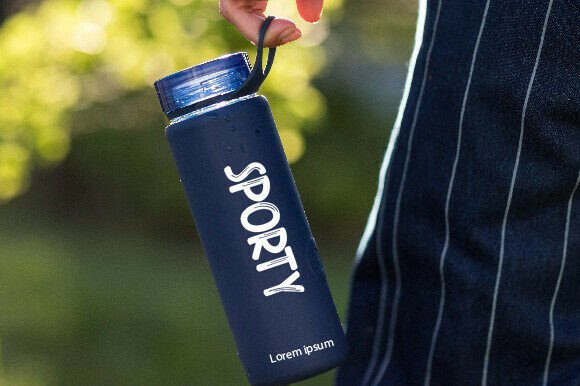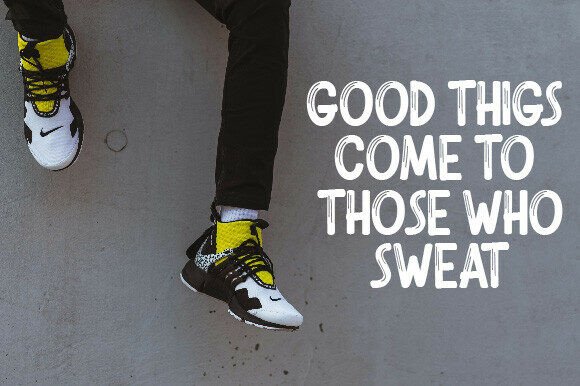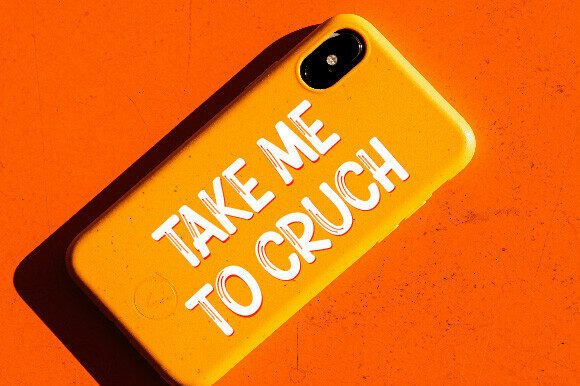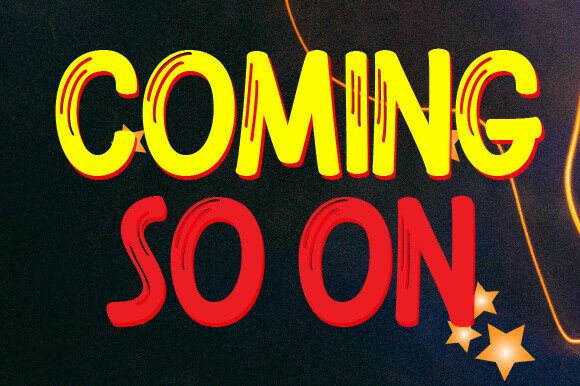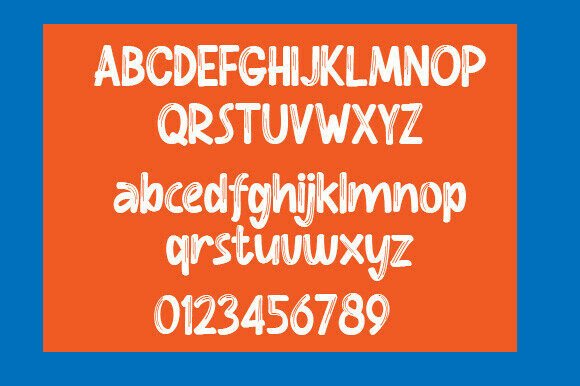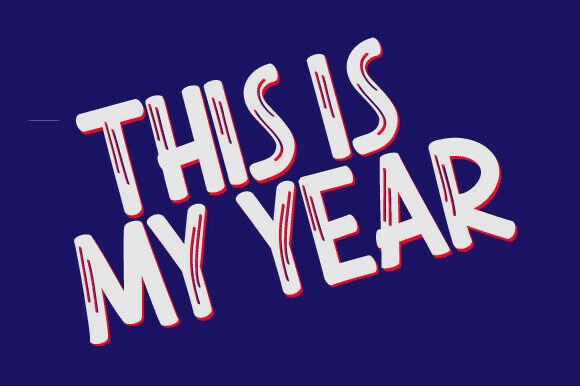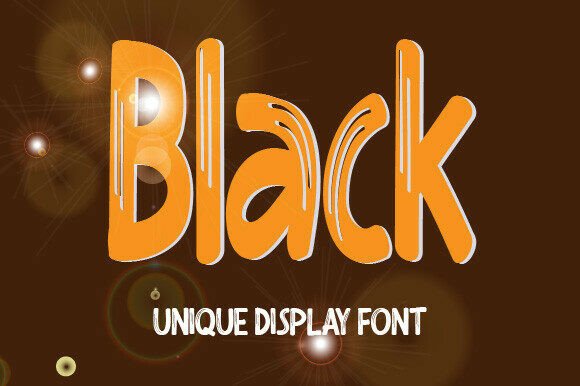
The Power of Black Font: Elevate Your Designs with this Unique Display Font
I’ll never forget the time I was working on a branding project for a luxury fashion client. I had spent hours pouring over design concepts, but something was missing – the perfect font. That’s when I stumbled upon Black Font, a game-changing display font that instantly elevated my design. In this article, I’ll share my experience with Black Font, its features, and how to make the most of it in your designs.
What Makes Black Font Special?
Black Font is a unique display font that boasts a well-balanced, contemporary design with a fancy, unique, and versatile luxury sans serif style. Its comic look makes it perfect for a wide range of projects, from branding and logos to wedding designs, social media posts, and more.
An Honest Review of Black Font
The Good: What I Love About Black Font
- ✨ High legibility: Black Font is designed to be easily readable, making it perfect for body text and headlines.
- ✅ Versatility: This font is suitable for a wide range of projects, from luxury branding to kids’ projects and comic designs.
- 💥 Unique style: Black Font’s comic look sets it apart from other fonts, adding a touch of personality to your designs.
The Not-So-Good: Small Quirks and Limitations
While Black Font is an exceptional display font, there are a few things to keep in mind:
- ⚠️ Limited use in body text: Due to its unique style, Black Font may not be the best choice for lengthy body text.
- 🤔 Glyph limitations: While Black Font has a range of glyphs, it may not have every special character you need.
The Backstory of Black Font
Black Font was designed with the goal of creating a unique, versatile font that could be used in a wide range of projects. Inspired by the world of comics and luxury branding, Black Font’s designer aimed to create a font that would add a touch of personality to any design.
Q: What type of projects is Black Font best suited for?
A: Black Font is perfect for branding projects, logos, wedding designs, social media posts, advertisements, kids’ projects, comic designs, and more.
Q: Can I use Black Font for body text?
A: While Black Font is legible, it’s primarily designed for display use. For lengthy body text, you may want to choose a more traditional font.
Q: Does Black Font have OpenType features?
A: Yes, Black Font has a range of OpenType features, including glyphs and stylistic alternates, which can be accessed in compatible design software.